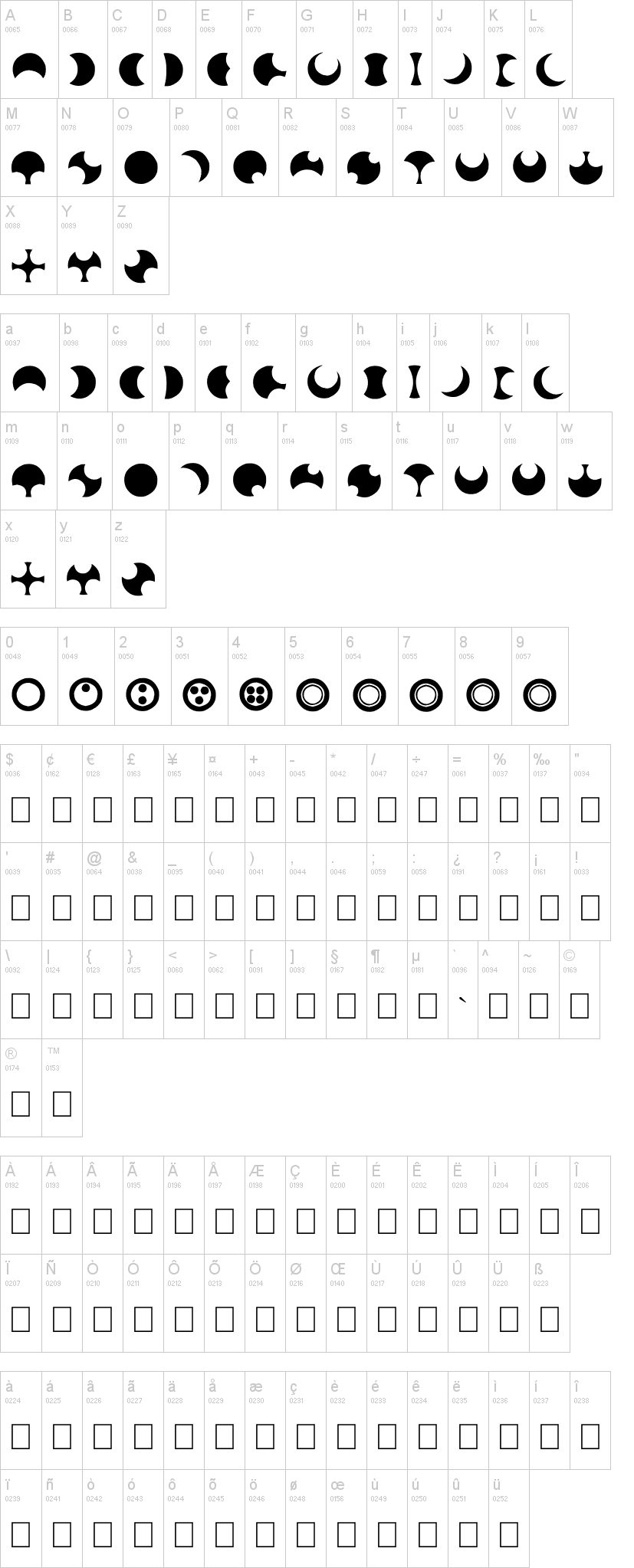
Шрифт Moonogram
This is a type of monogram for a fictional world called the Moon World. Each symbol of a differently cresented moon represents a letter, even O, though is not cresented. They're a type of code that must be translated or known by knowing which letter means which.